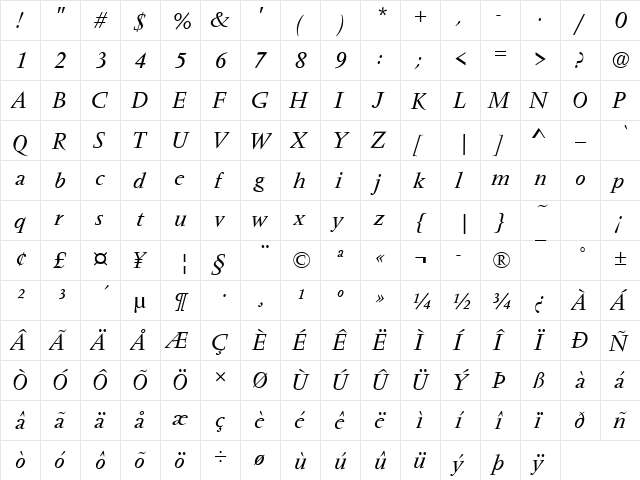
VendomeT Italic
Design Context for VendomeT Typeface
VendomeT takes a measured approach to typography — its balanced proportions and neutral character make it a reliable workhorse for both digital and print work. Its italic angle brings a sense of urgency and motion to the letterforms.